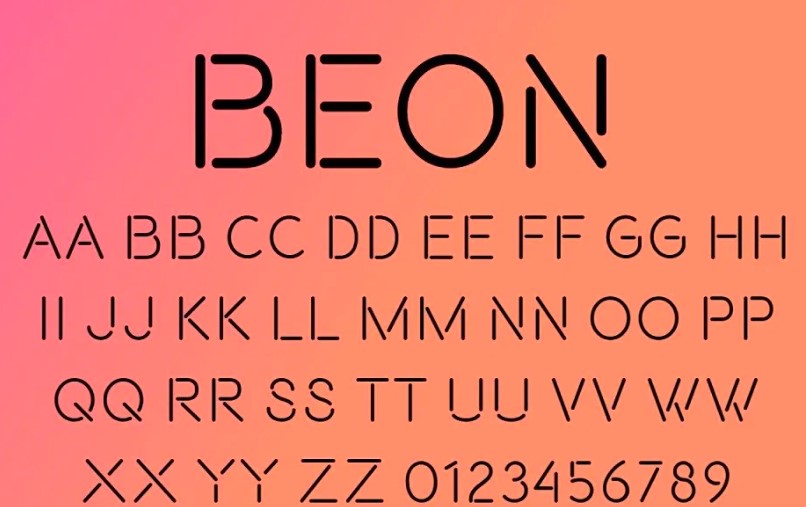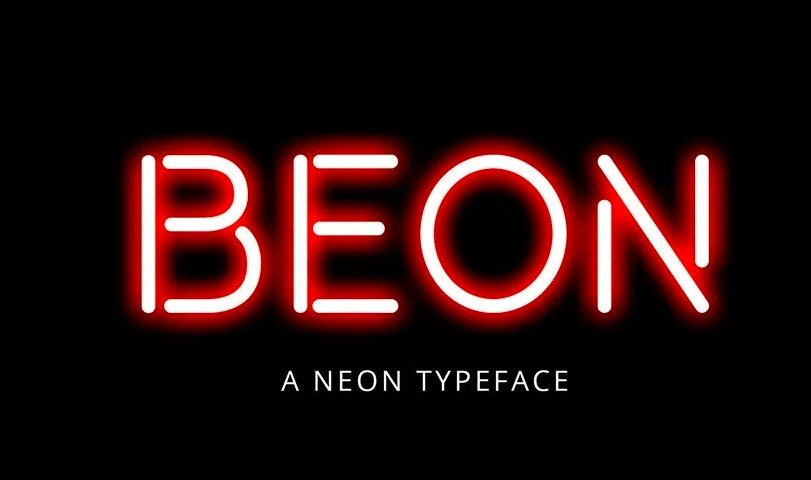
Introducing the amazing and brilliant typeface that is used in numerous stunning design projects. Meet Beon Display Font, featuring gorgeous, unparalleled, and futuristic graphic design elements that will effortlessly meet all your needs.
The font is suitable to use with the combination of glacial indifference font contains the smartest texture as you have seen in the image that we attached for you to view and get an idea about its strokes, shapes and designing layout because the great typeface can designs the perfect project.
The typeface is available in two different variations, bold and regular which can easily be utilized for all kinds of great stuffs.
View Of Beon Display Font
Here we provide an image which includes the characters and letters of this beautiful, you can perceives it by viewing on the image and get an idea how delightful it is.
As you can see in the image above that the font has a display texture that has lighting features for putting all the attractiveness to your designs.
It contains elegant and smartest texture which is useful for making lots of beautiful and amazing projects. The best thing of this font is the font is free to use for making catalogs, banners, magazine covers, and lots of other projects.